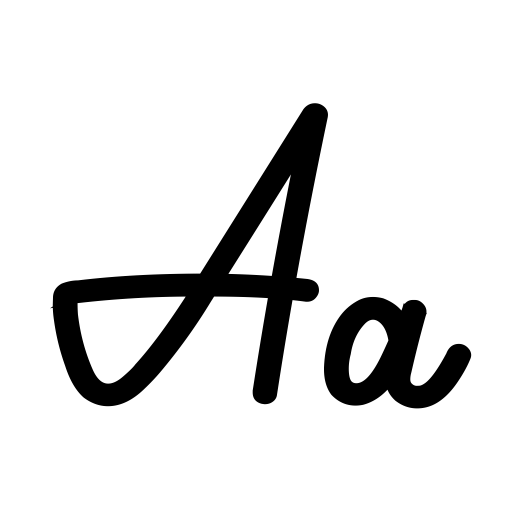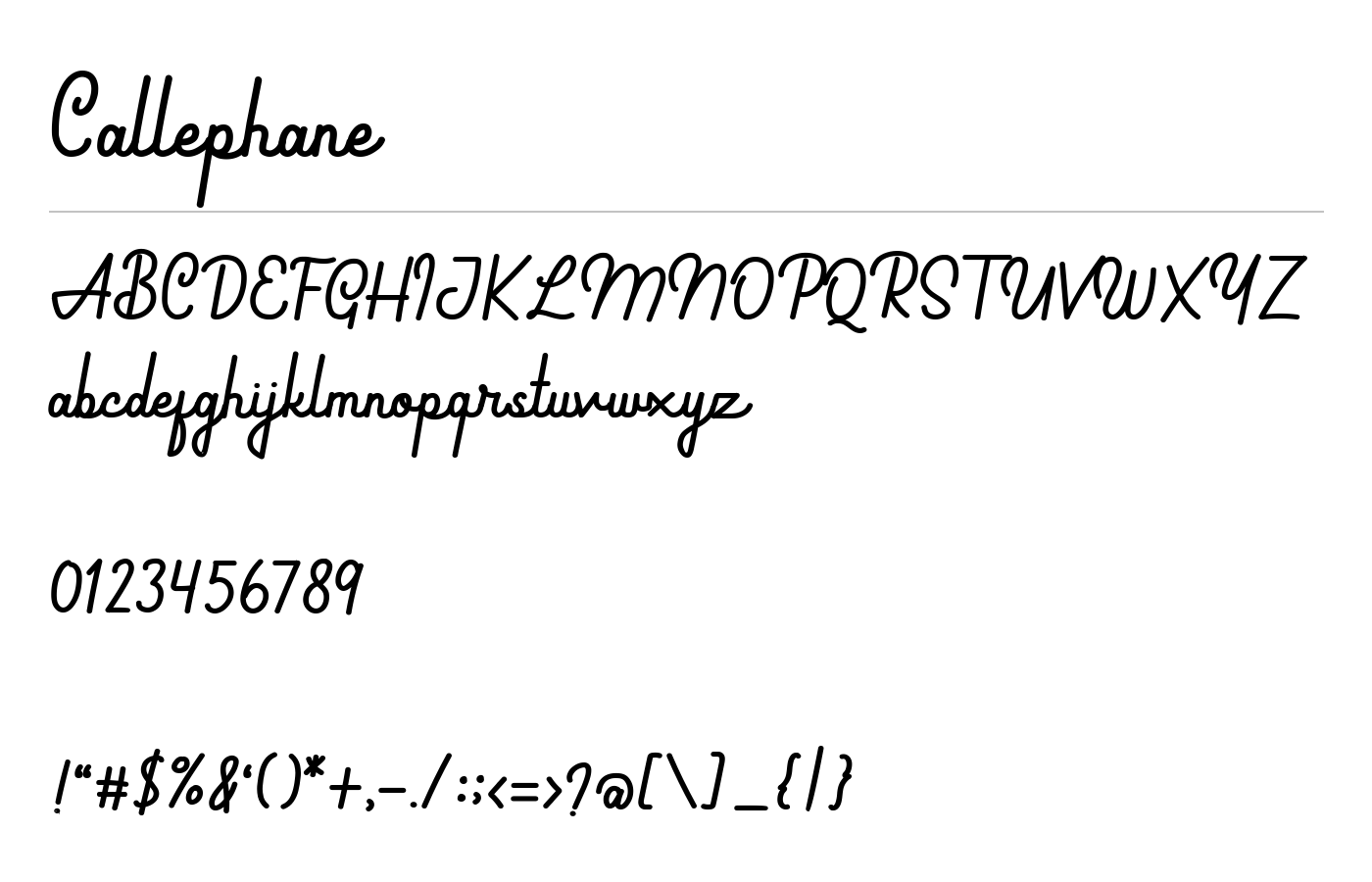
Callephane is an elegant script font featuring a clean, slightly condensed style with smooth, flowing strokes that offer a handwritten yet polished look. Its consistent weight and distinctive curvy letterforms, including unique uppercase characters and a refined lowercase, make it ideal for branding, invitations, and stylish headlines where a personal, sophisticated touch is desired. This font works well in creative and fashion contexts, adding charm and warmth without sacrificing readability.
Callephane Font
About Callephane Font
| Designer | Agam Rahmadan |